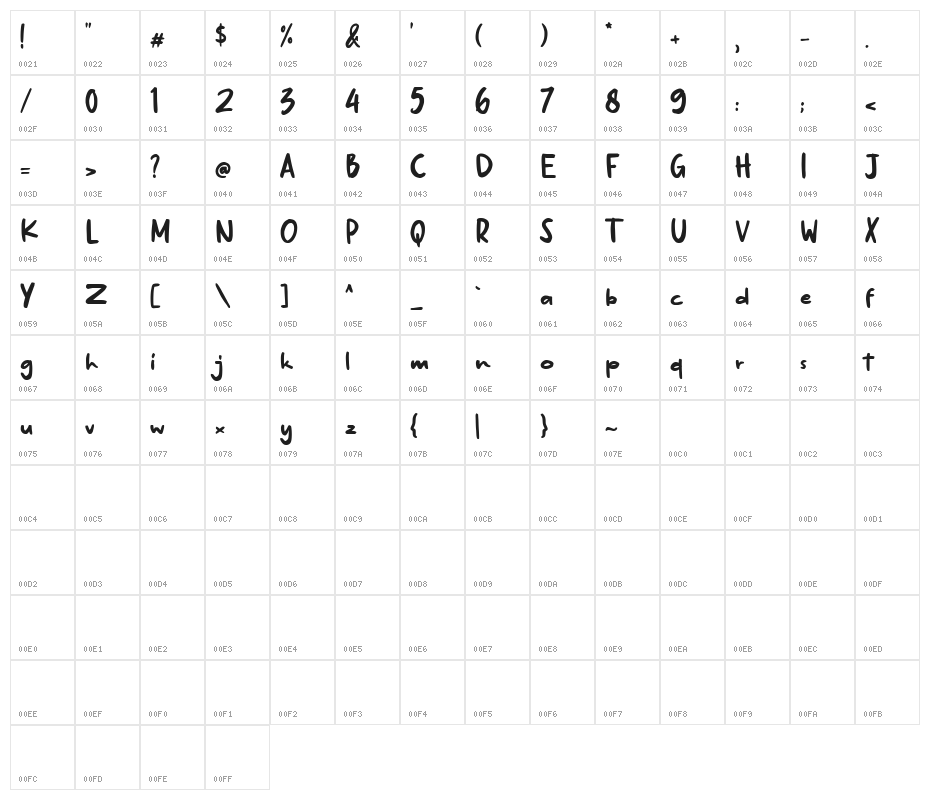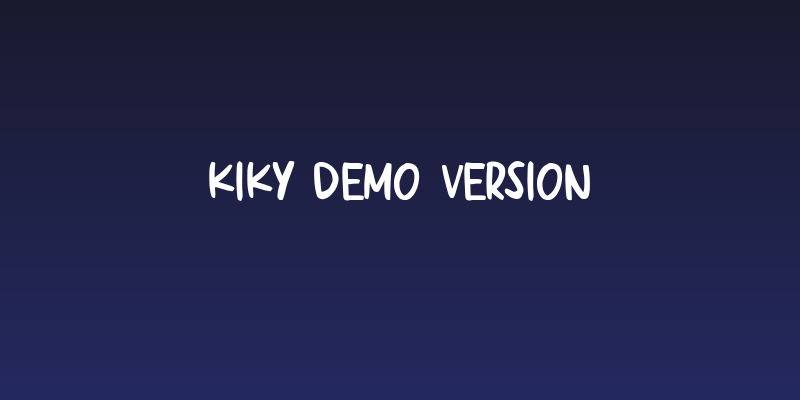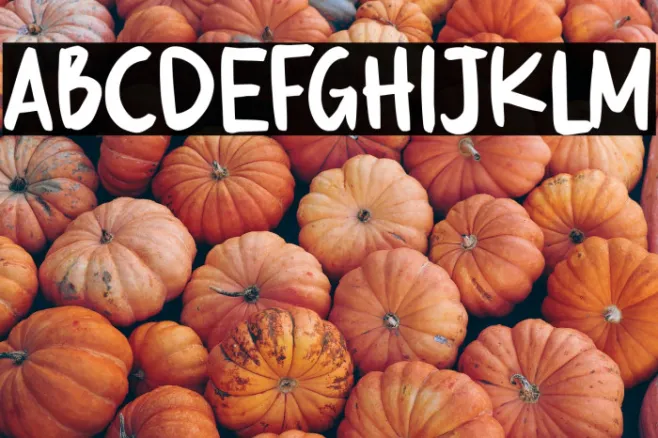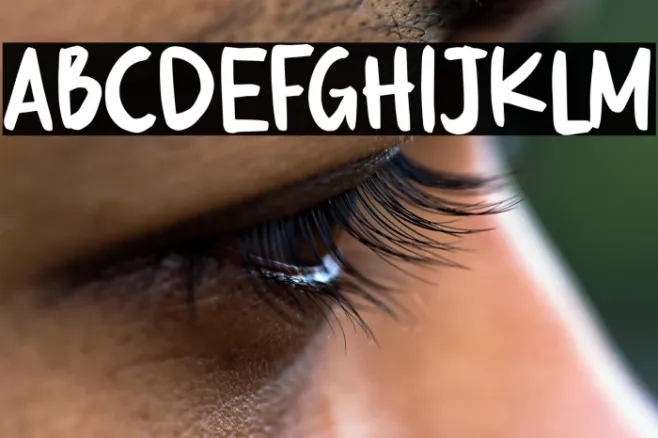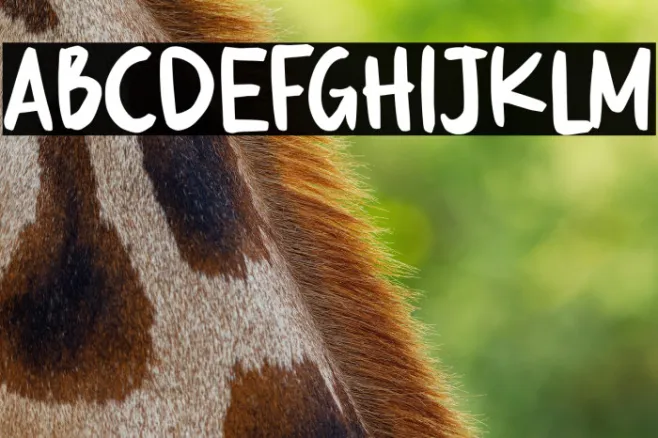
Kikyö Demo Version Font
Kikyö Demo Version Description
This playful and energetic font features bold, rounded characters with a hand-drawn aesthetic. The uppercase and lowercase letters are crafted with a casual flair, giving off a friendly and approachable vibe. The numbers and special characters maintain the same lively style, ensuring consistency across all text elements. The strokes are thick and uniform, providing a strong visual impact while maintaining readability. This font is perfect for projects that require a personal touch, such as children's books, playful branding, or creative posters.
| Proposed Projects | Ideal for children's books, playful branding, creative posters, and informal invitations. |